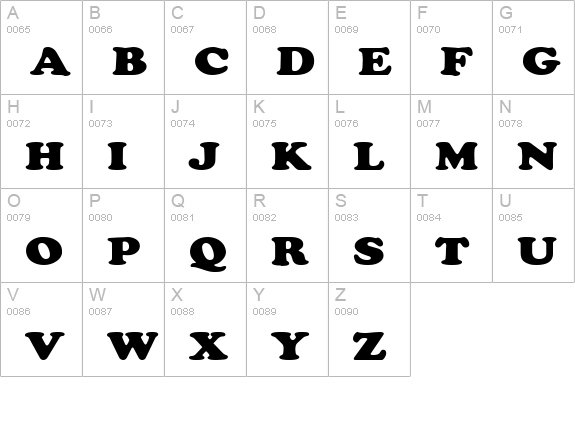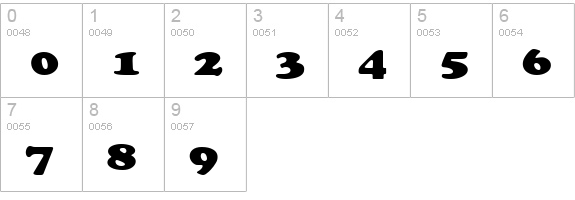
Cupid-Extended Normal Font Details
Cupid-Extended Normal is the standard, neutral, extended-width variant in the Cupid typeface family \xE2\x80\x94 well suited to general body text, paragraphs, and standard typographic work.
Cupid-Extended Normal font is a charming and versatile typeface that is sure to capture hearts with its elegant design. This font features sleek lines and graceful curves, making it perfect for a variety of design projects. Whether you are creating wedding invitations, greeting cards, or branding materials, Cupid-Extended Normal font will add a touch of romance and sophistication to your work. And the best part? Cupid-Extended Normal font is completely free to download at FontsMarket.com! So spread the love and elevate your designs with this beautiful and timeless font today.